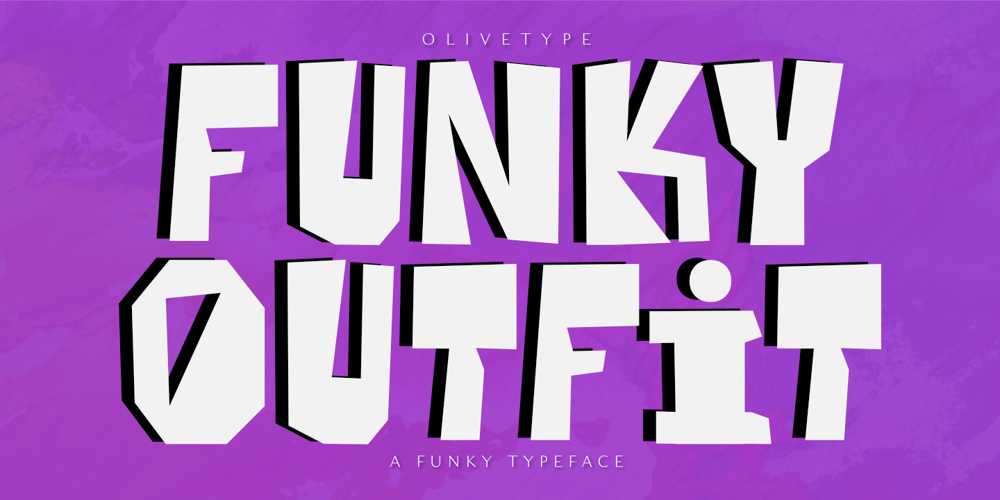
Funky Outfit Font Family was designed by Aldy Sidik, Nurul Hidayani and published by Olivetype. Funky Outfit contains 1 styles and family package options. Love to be different? Mix up your design with Funky Outfit, the all caps display typeface that is fun, youthful, and playful. Funky Outfit is a striking display typeface with a distinctive personality. The quirky, energetic design of this font suits a variety of uses, ideal for headlines, logos, posters, product packaging, and more.Make your design stand out with Funky Outfit!So what’s included : Basic Latin Uppercase and Lowercase Numbers, symbols, and punctuations Multilingual Support. PUA Encoded and fully accessible without additional design software Simple Installations works on PC & Mac Thank You !